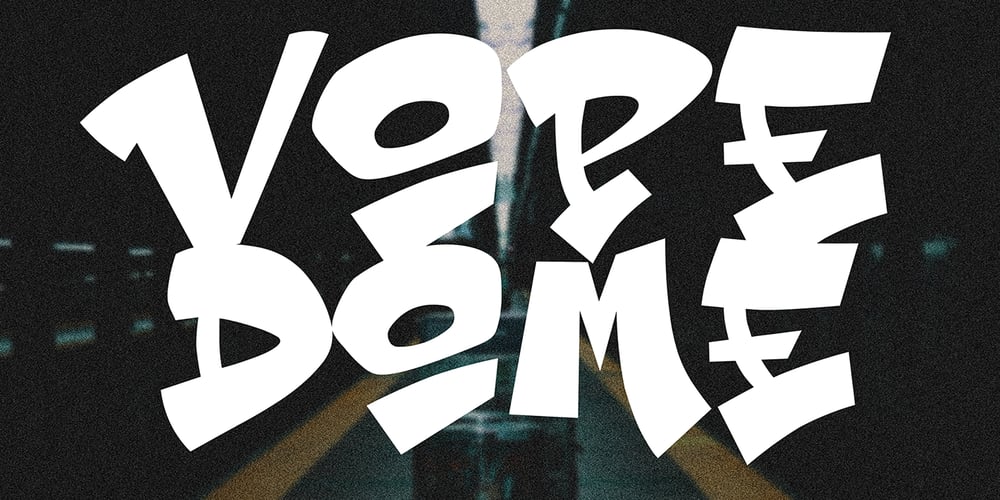
Vope Dome Font Family was designed by Sipanji and published by Sipanji21. Vope Dome contains 1 styles and family package options. Vope Dome is an incredibly unique and chunky lettered display font. Add this font to your favorite creative ideas and notice how it makes them come alive!